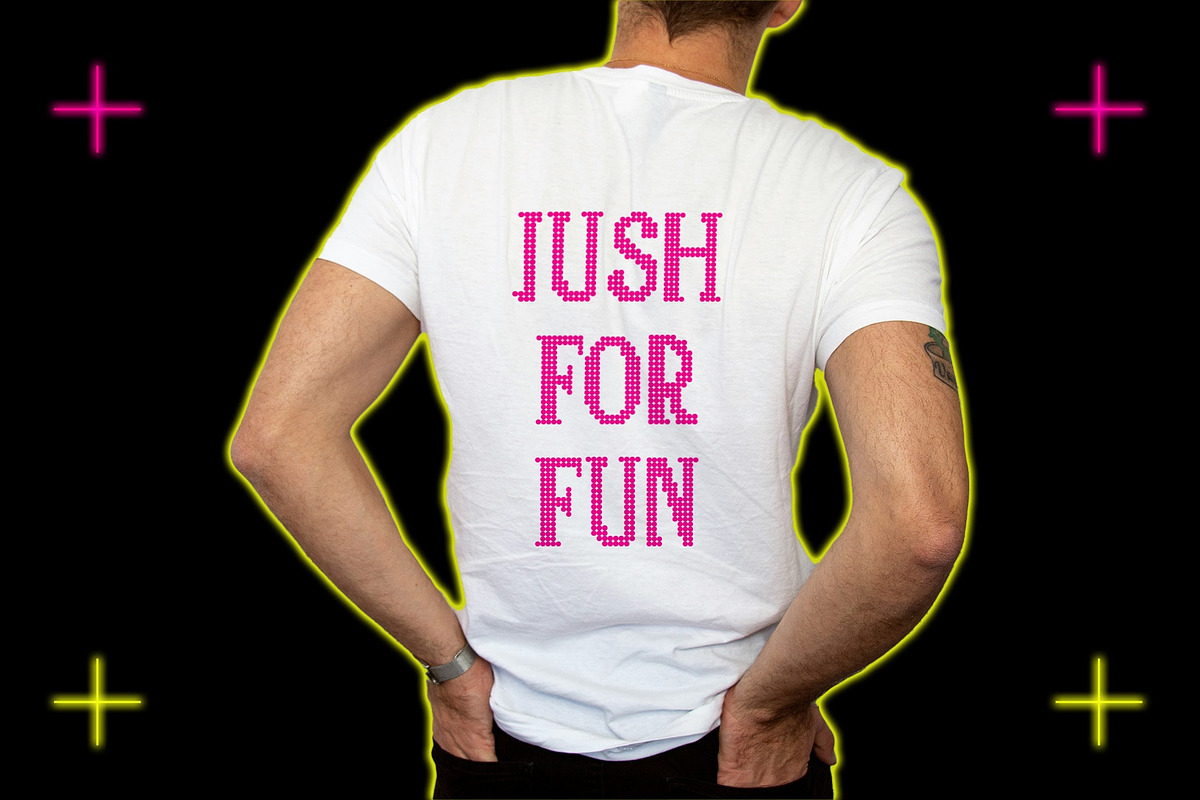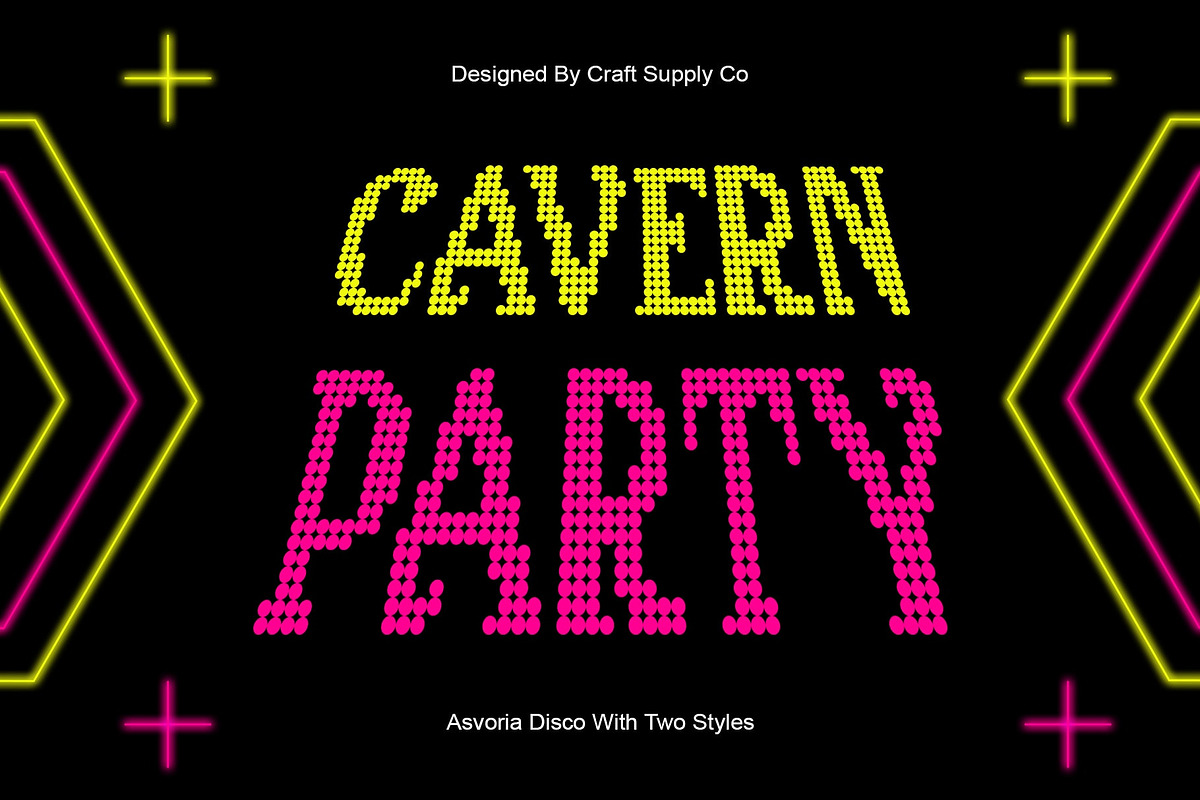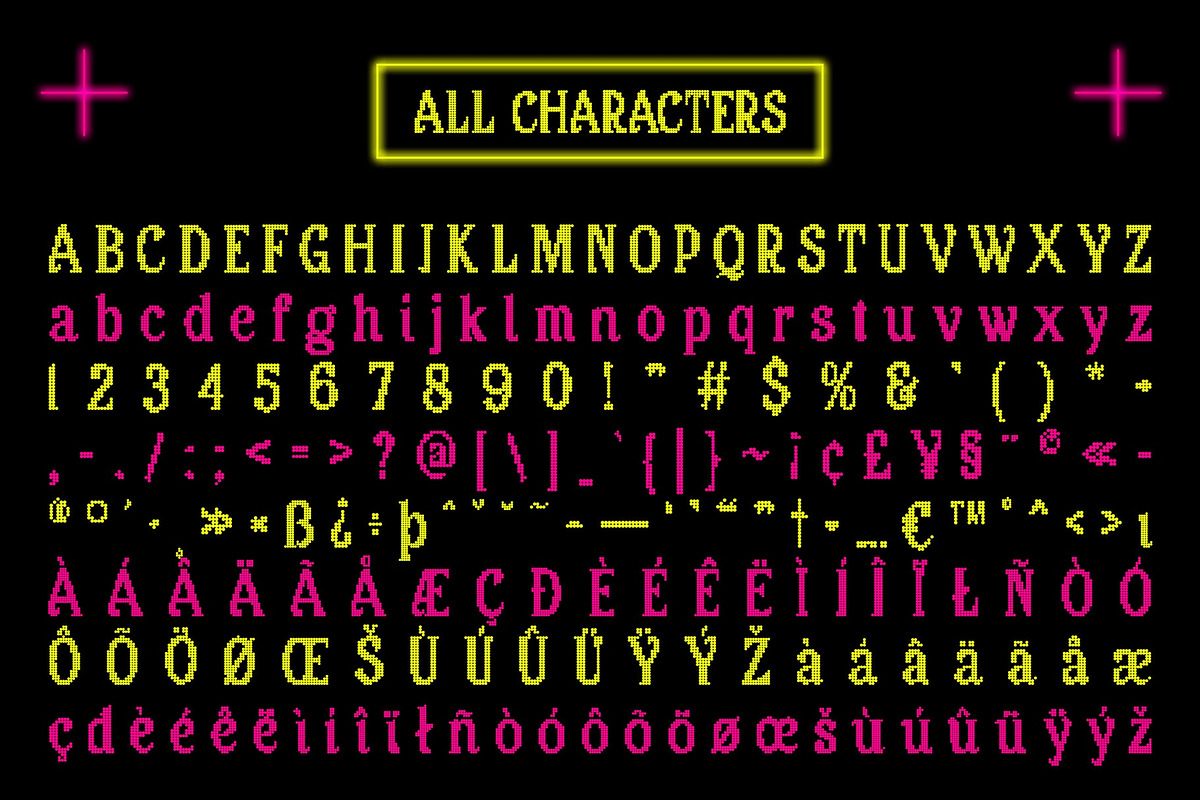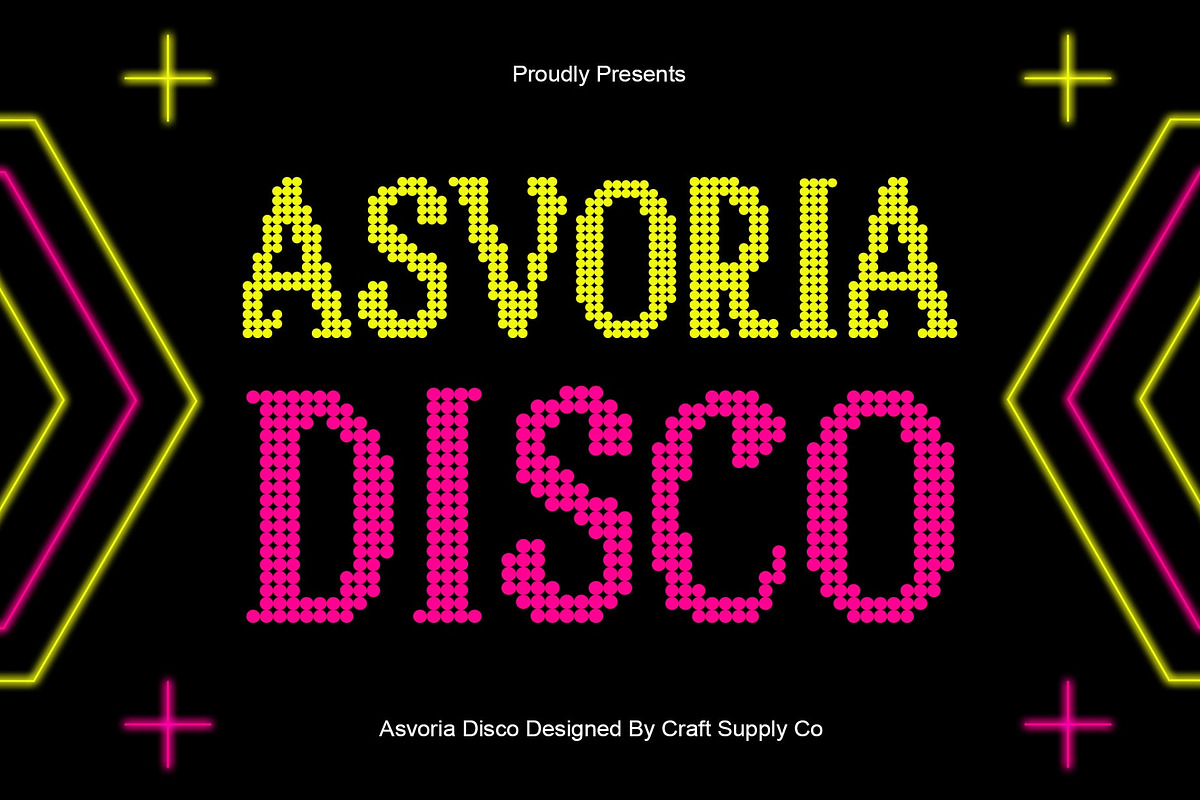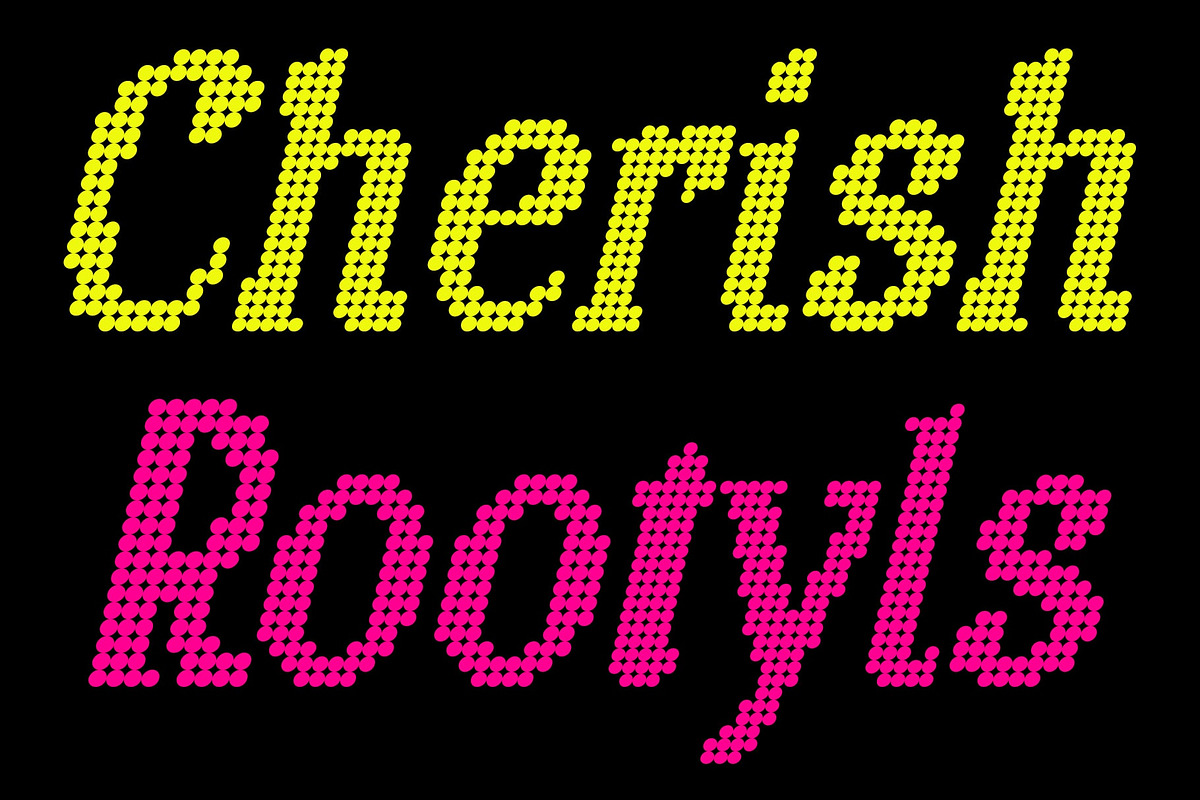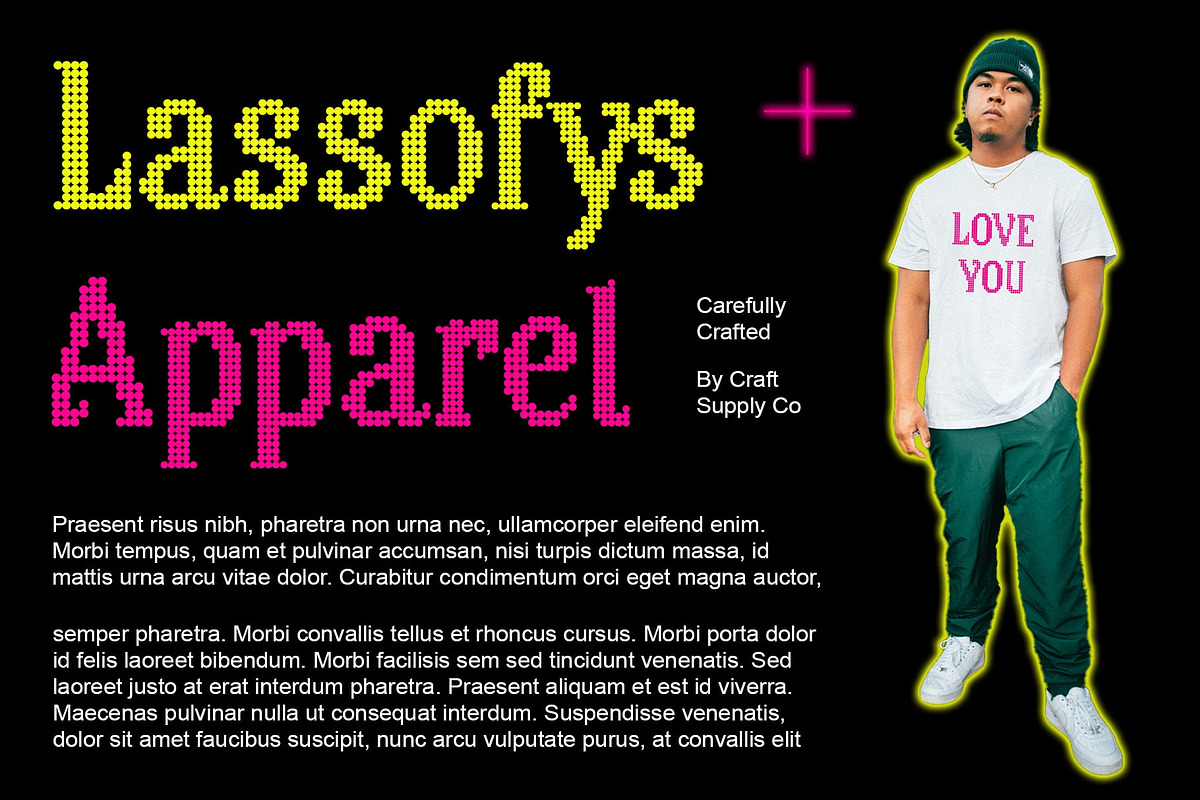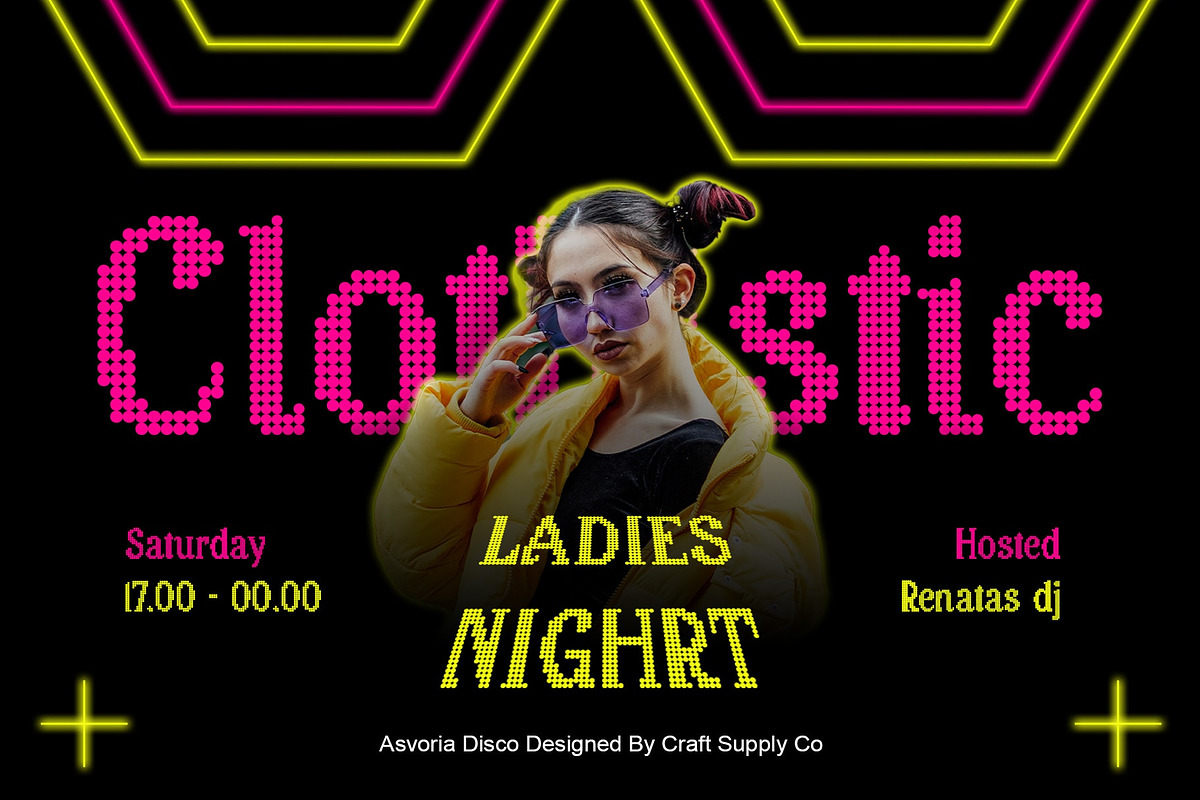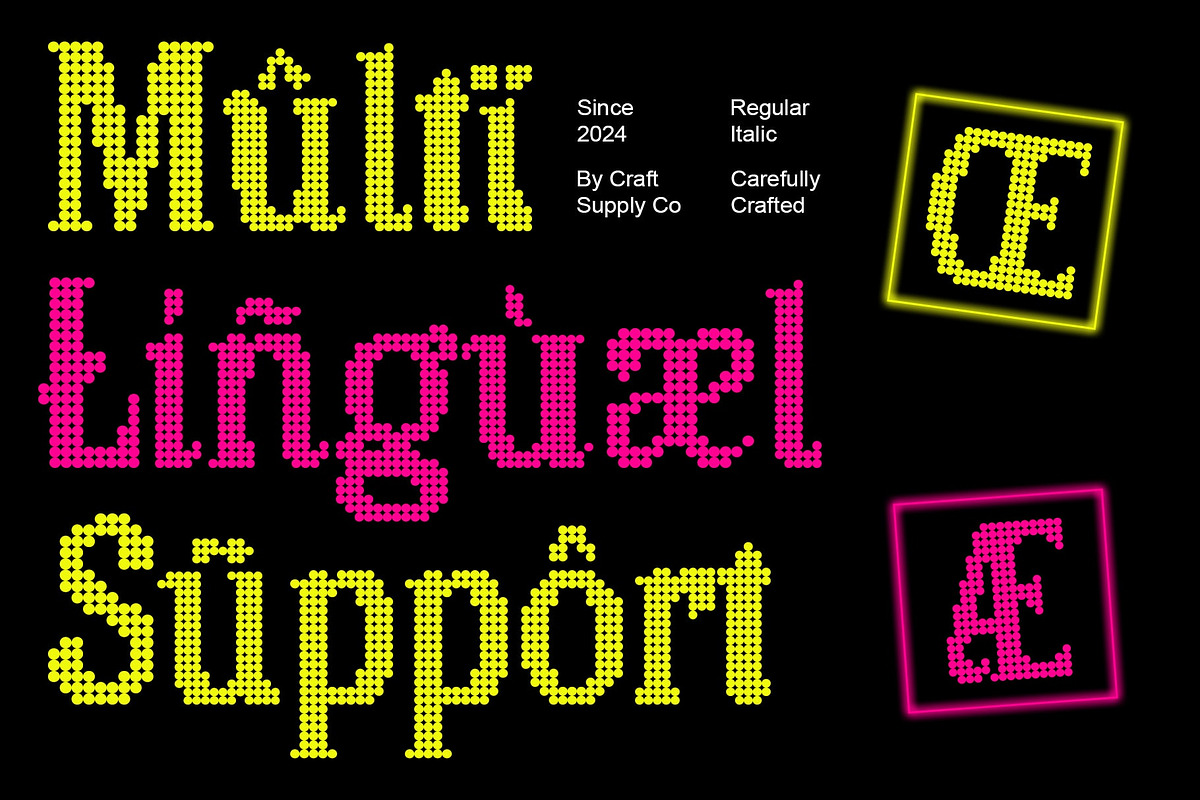
Asvoria Disco
Asvoria Disco: Classic Serif Redefined
Reviving Classic Elegance Asvoria Disco rejuvenates the timeless charm of classic serif fonts with a contemporary twist. Its dot-style effects add a touch of disco-inspired flair, breathing new life into traditional typography.
Disco-Inspired Nuances Drawing inspiration from the vibrant disco era, This font infuses your designs with retro vibes and dynamic energy. The dot-style elements evoke the glitz and glamour of the dance floor, making it perfect for eye-catching display purposes.
Versatile Display Font Tailored for display applications, This font shines in various design contexts. From posters and album covers to event invitations, its unique blend of classic serif and disco-inspired elements captivates viewers and commands attention.
Elevating Your Designs This font elevates your designs with its distinctive charm and versatility. Whether you’re creating promotional materials for a disco-themed event or adding a retro touch to your branding, this font ensures your message stands out in style.
Fusion of Classic and Disco This font seamlessly blends classic serif typography with disco-inspired dot-style effects, offering a fresh take on display fonts. Its versatility and dynamic charm make it a standout choice for designers seeking to infuse their projects with retro allure and contemporary appeal. Step into the world of This font and let your designs sparkle with disco-infused elegance.
- Asvoria Disco Regular
- Asvoria Disco Italic